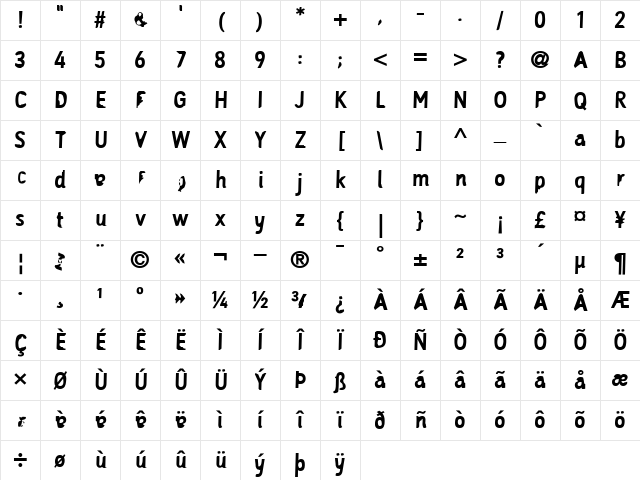
TrampaIntePaMinKuk Slyna Regular
Design Context for TrampaIntePaMinKuk Slyna
TrampaIntePaMinKuk Slyna is a composed and adaptable typeface that performs quietly and consistently across a wide range of design contexts.